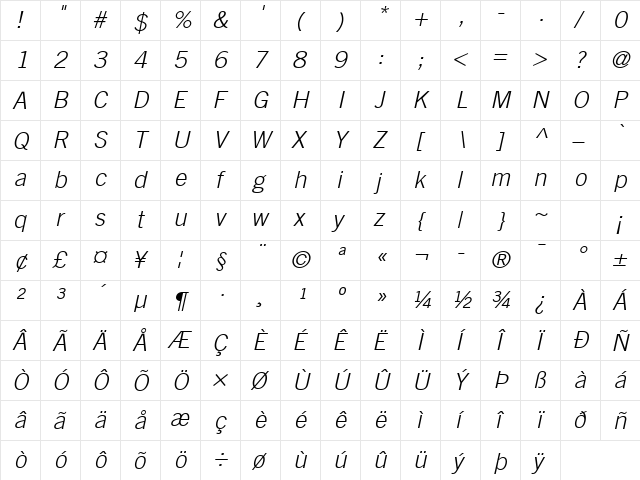
Trade Gothic LT Com Light Oblique Font Preview
| Foundry | Linotype GmbH |
| Designer | Jackson Burke |
Design Context for Trade Gothic LT Com Typeface
Trade Gothic LT Com takes a clean, functional approach — its unadorned letterforms prioritise legibility and work reliably across screen and print environments. The slanted form adds forward momentum and visual energy. Its slender proportions lend an understated elegance to any composition.
Ideal for fashion and beauty branding, minimal editorial layouts, and premium digital experiences.
Font Pairing: Pair Trade Gothic LT Com with a medium or bold serif for headlines — the weight contrast creates an elegant, high-end feel.
Pro Tip: Avoid using Trade Gothic LT Com at very small sizes where its slender strokes can disappear. It performs best at medium to large sizes.